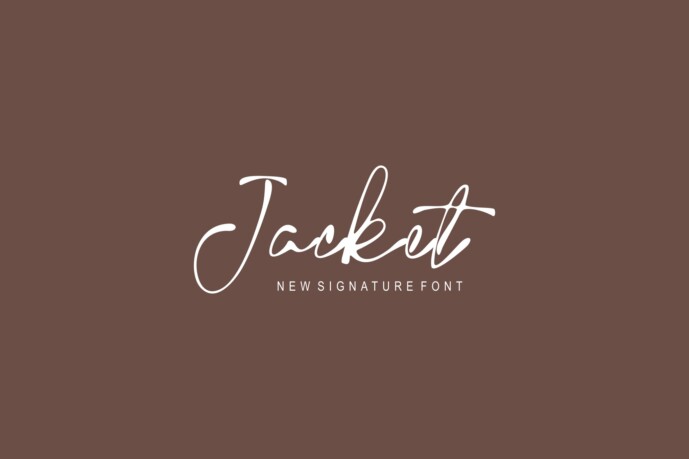
Jacket Signature Font
Introducing our new product Jacket Font – Modern Font
Jacket Font– Modern Font is a bold and authentic display font. The font is suitable for any branding project like logo, esport, and many more. outstanding in a wide range of contexts.